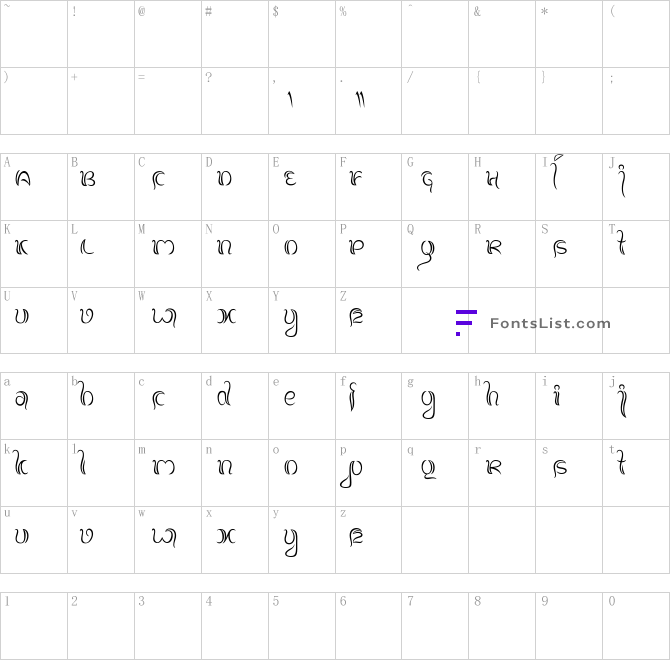
- Font Name:Balinese Family
Balinese-Family-Normal.ttf is a very beautiful artistic font, Balinese-Family-Normal.ttf is widely used in the design and printing of various books and pictures,Balinese-Family-Normal.ttf has a strong visual impact,Balinese-Family-Normal.ttf is a commonly used font in newspapers, magazines and books, and is used in posters, e-commerce Poster design, store design, logo design, font design and other fields.Balinese-Family-Normal.